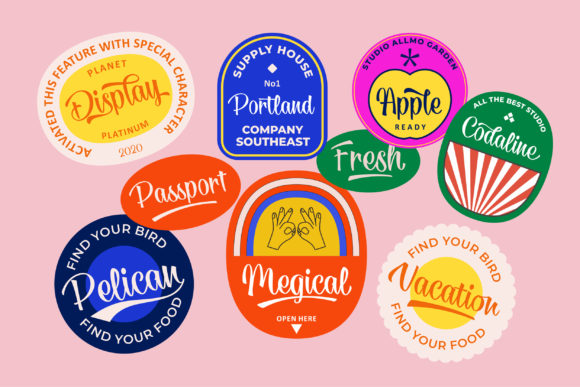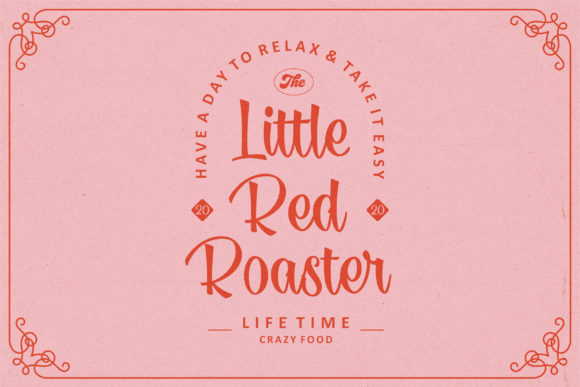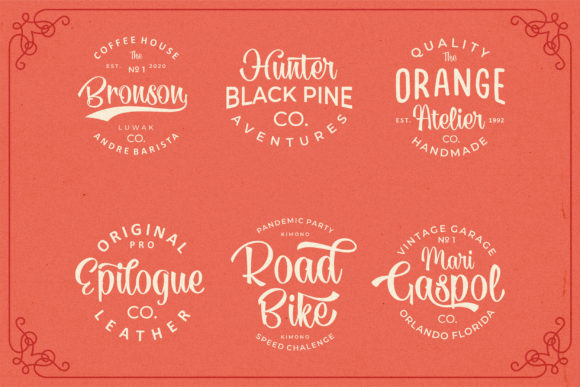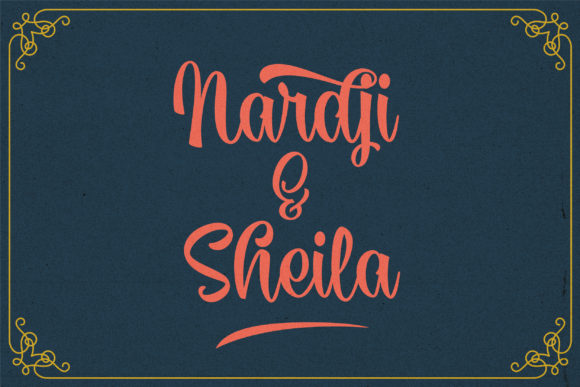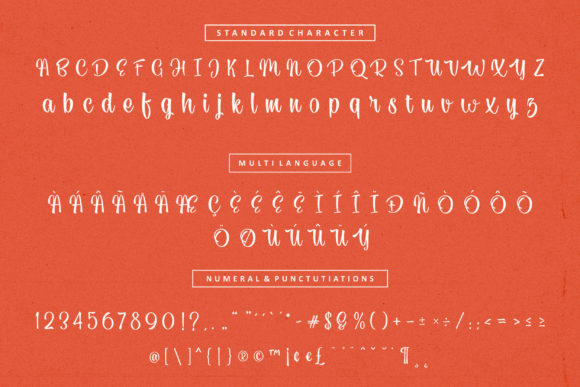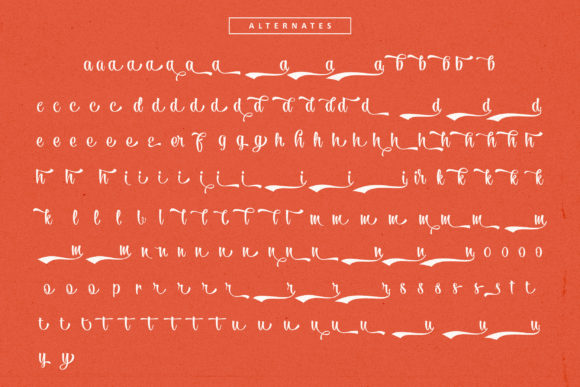
About Megabite Font
Megabite is an exquisite handwritten font, masterfully designed to become a true favorite. It maintains its classy calligraphic influences while feeling contemporary and fresh.
Fall in love with it and bring your projects to the highest levels!